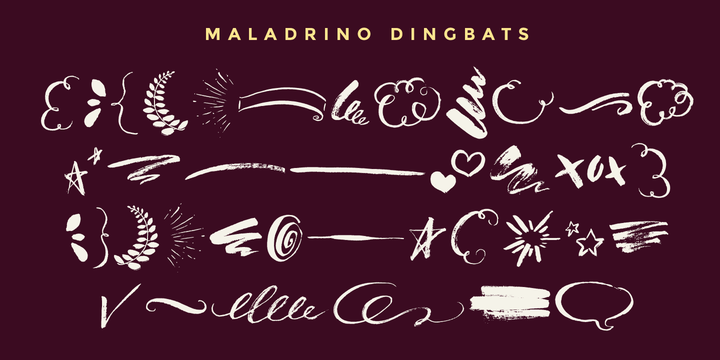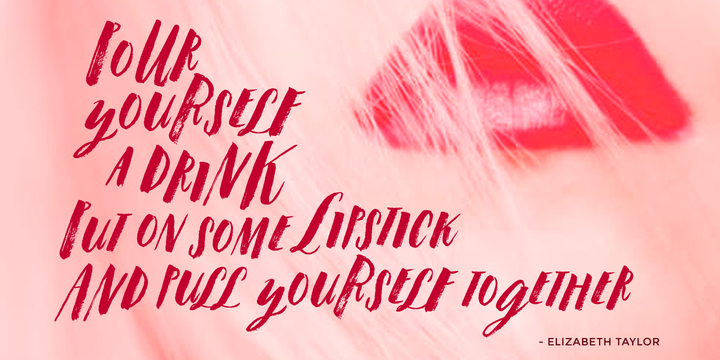
Malandrino Font Family
About this font family
Inspired by my Grandfather Dominick, “Malandrino” is an Italian word that means ‘rascal’ or ‘rogue’ – it’s what my Grandmother called my Grandfather with a ‘love smack’ to the back of his head.
This textured brush font has a mischievous charm with expressive word dingbats and a few special inked illustrations with the kind of rough and clever spirit that travels through a highly spirited spontaneous brush script.